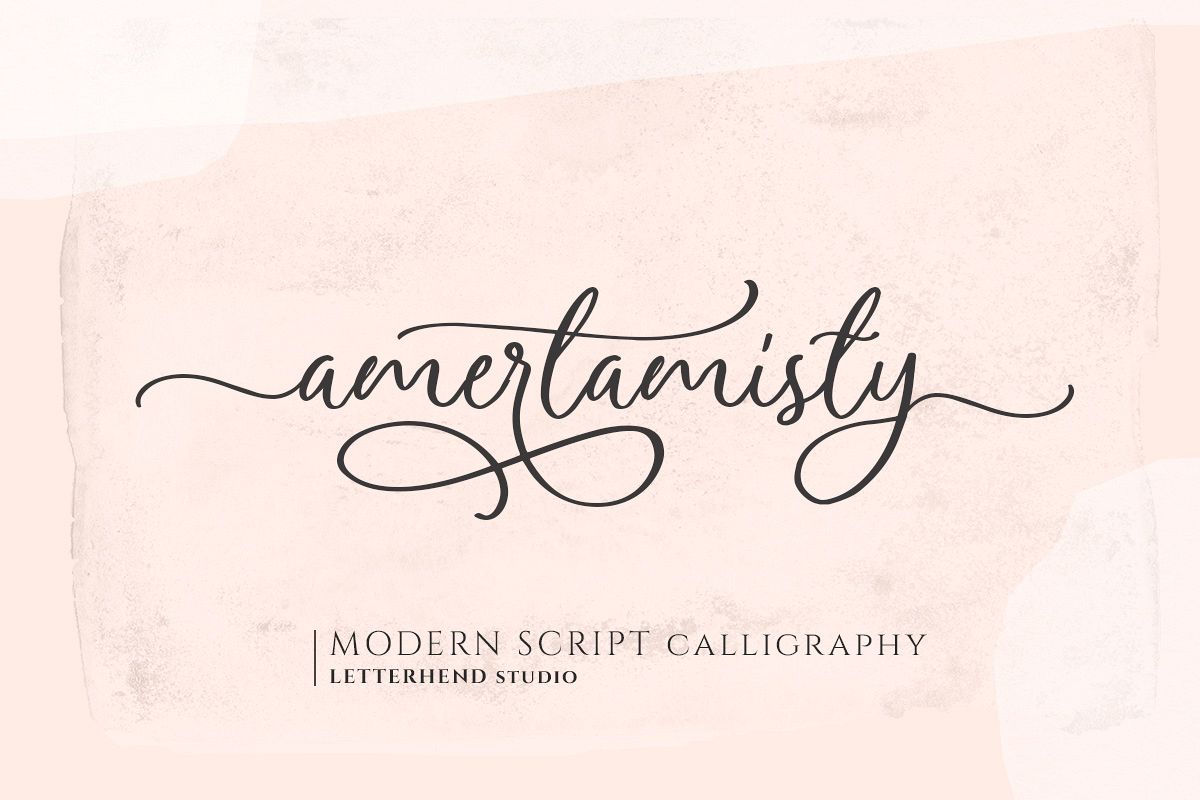
Amerta Misty Script
Amerta Misty Fix
Introducing, Amerta Misty. A modern calligraphy with tons of swashes! They works perfect for you who needs a typeface for headline, logotype, apparel, invitation, branding, packaging, advertising etc. This typeface is comes in uppercase, lowercase, punctuation, symbols, numerals, stylistic set alternate, ligatures, etc also support multilingual.We hope you enjoy the font, please feel free to comment if you have any thoughts or feedback. Or simply send me a PM or email me.
Amerta Misty Script